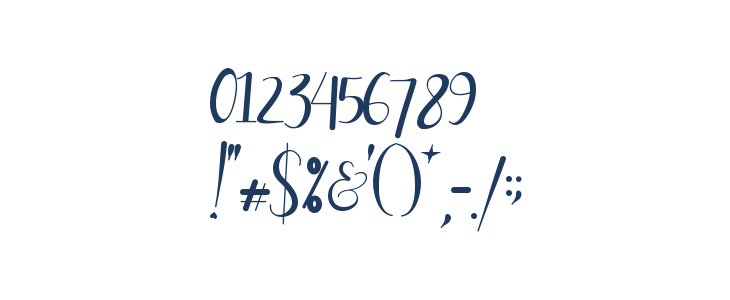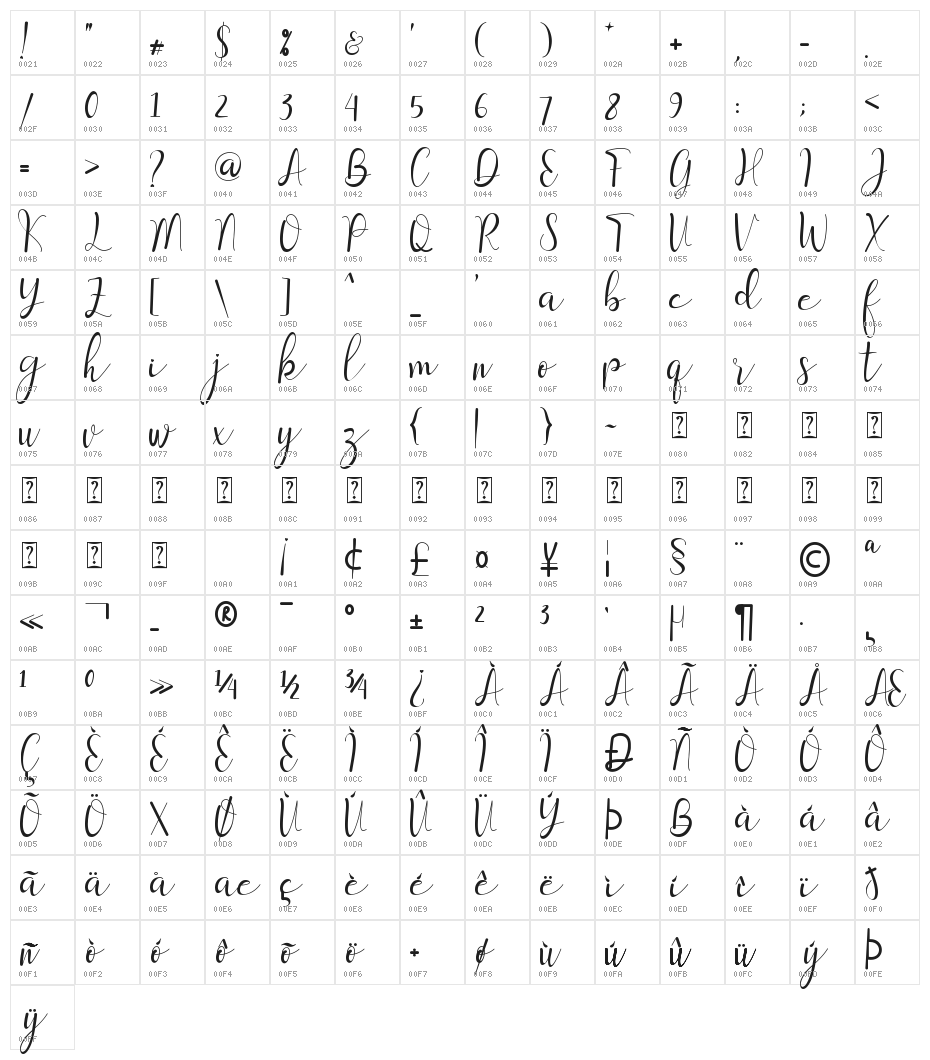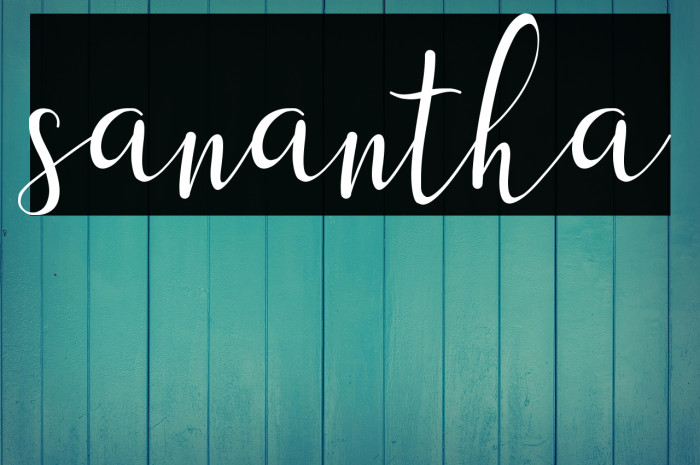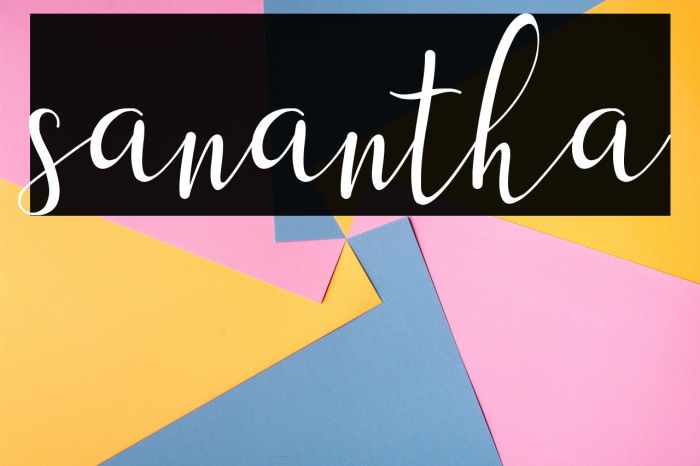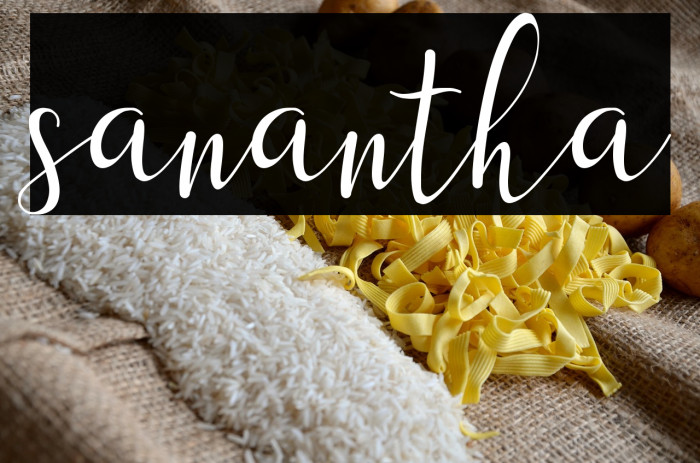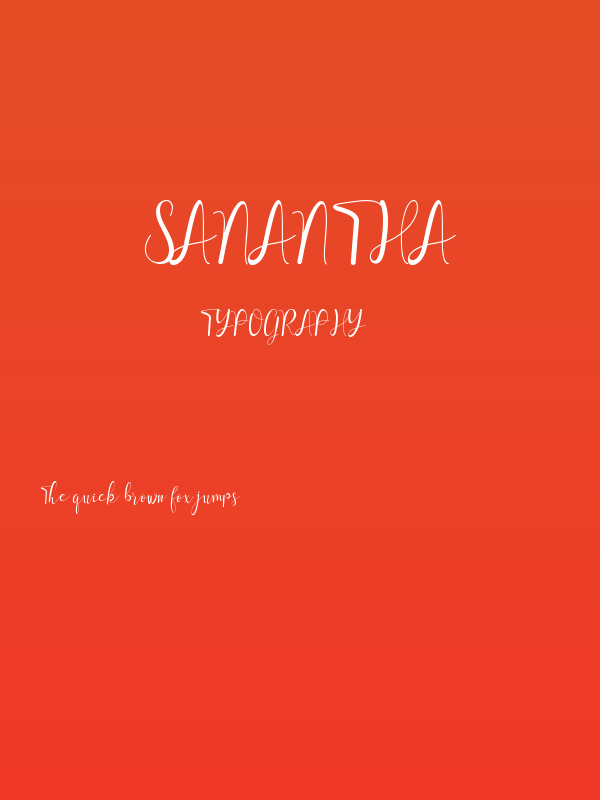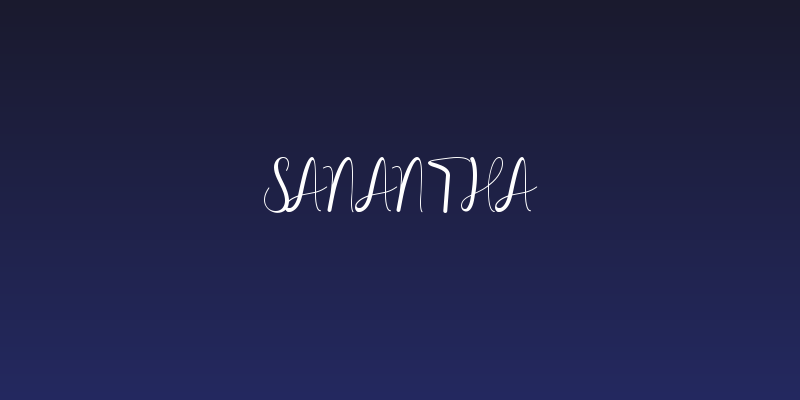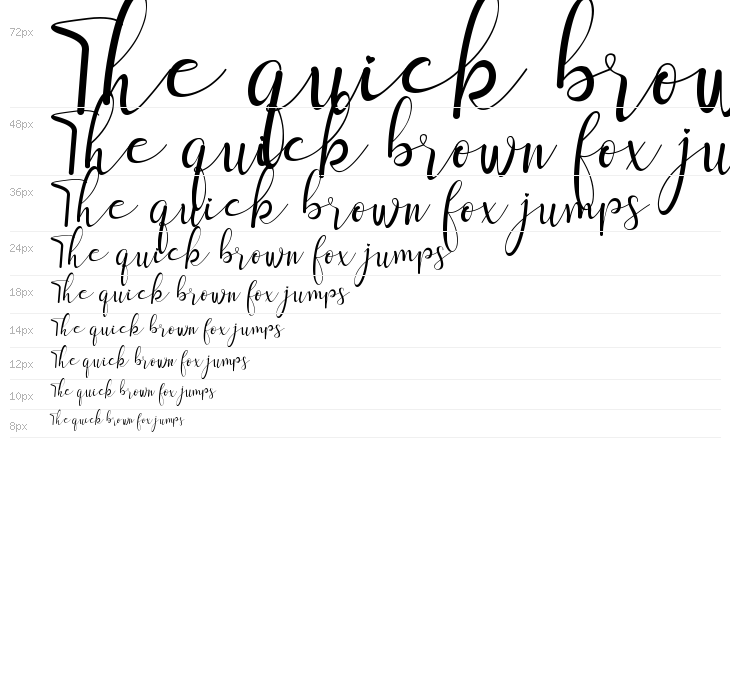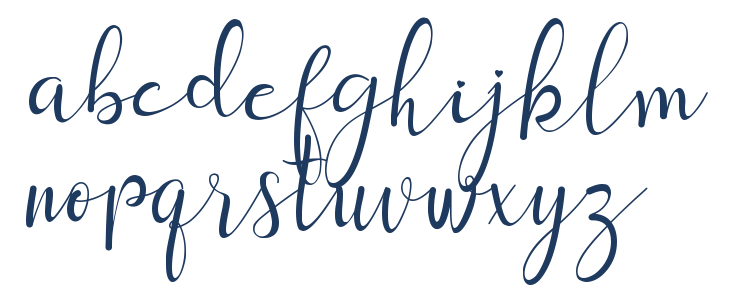
sanantha Font
sanantha Description
This font features an elegant and flowing script style, characterized by its fluid and connected letterforms. The uppercase letters are tall and graceful, with sweeping curves and loops that give a sense of movement and sophistication. The lowercase letters maintain this fluidity, with some letters extending below the baseline, adding to the font's dynamic appearance. The numerals are stylish and consistent with the overall script theme, while the special characters integrate seamlessly, maintaining the font's cohesive look. The strokes vary in thickness, providing a moderate contrast that enhances readability while preserving the decorative nature of the font.
| Overall Style | Elegant, Decorative |
| Proposed Projects | Ideal for wedding invitations, elegant branding, personal stationery, and decorative quotes. |